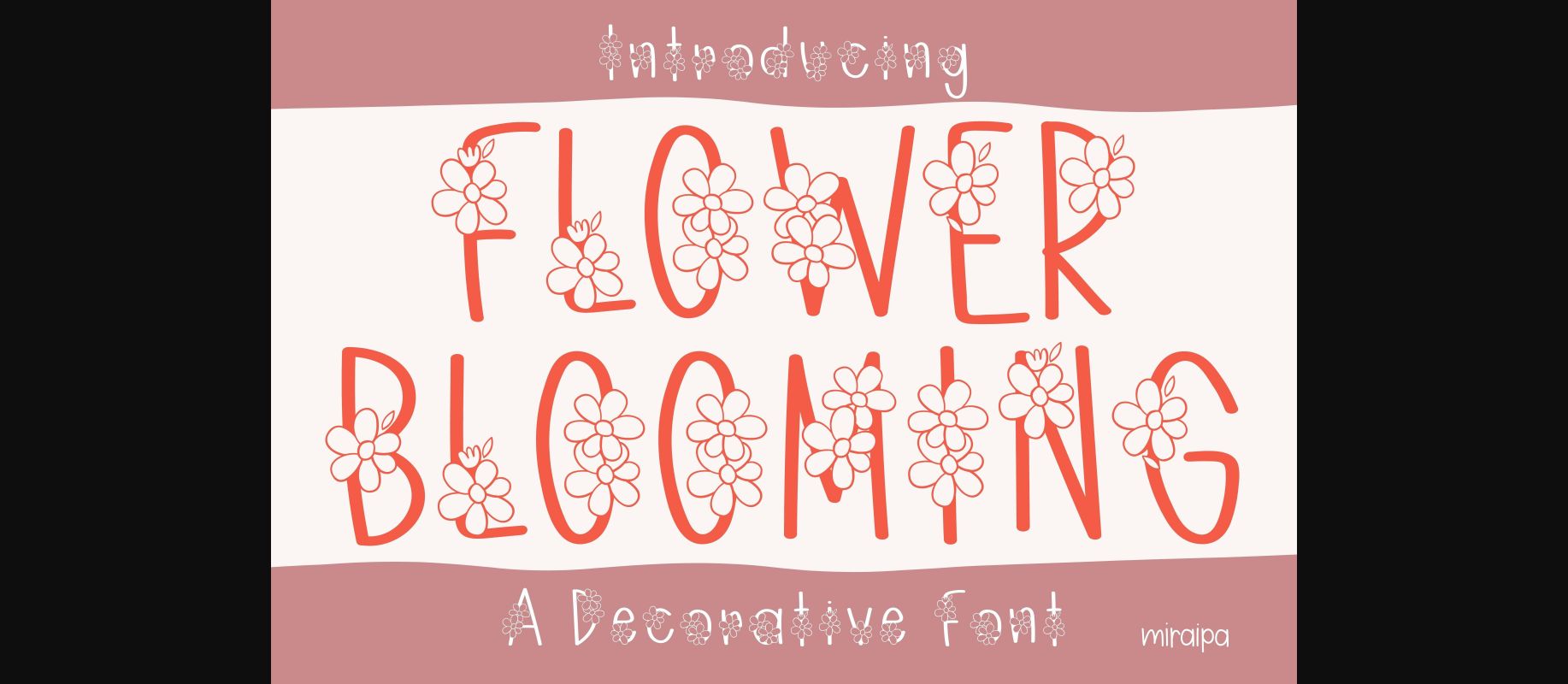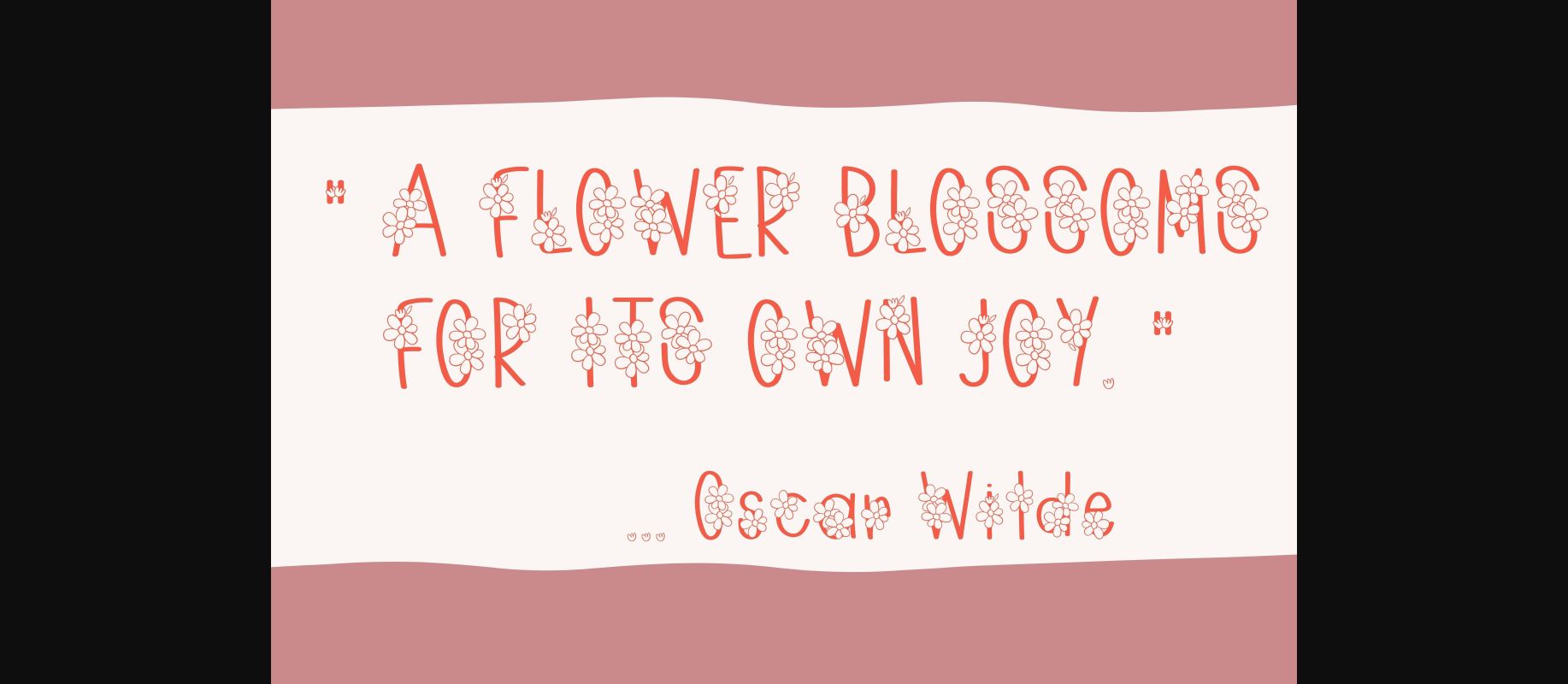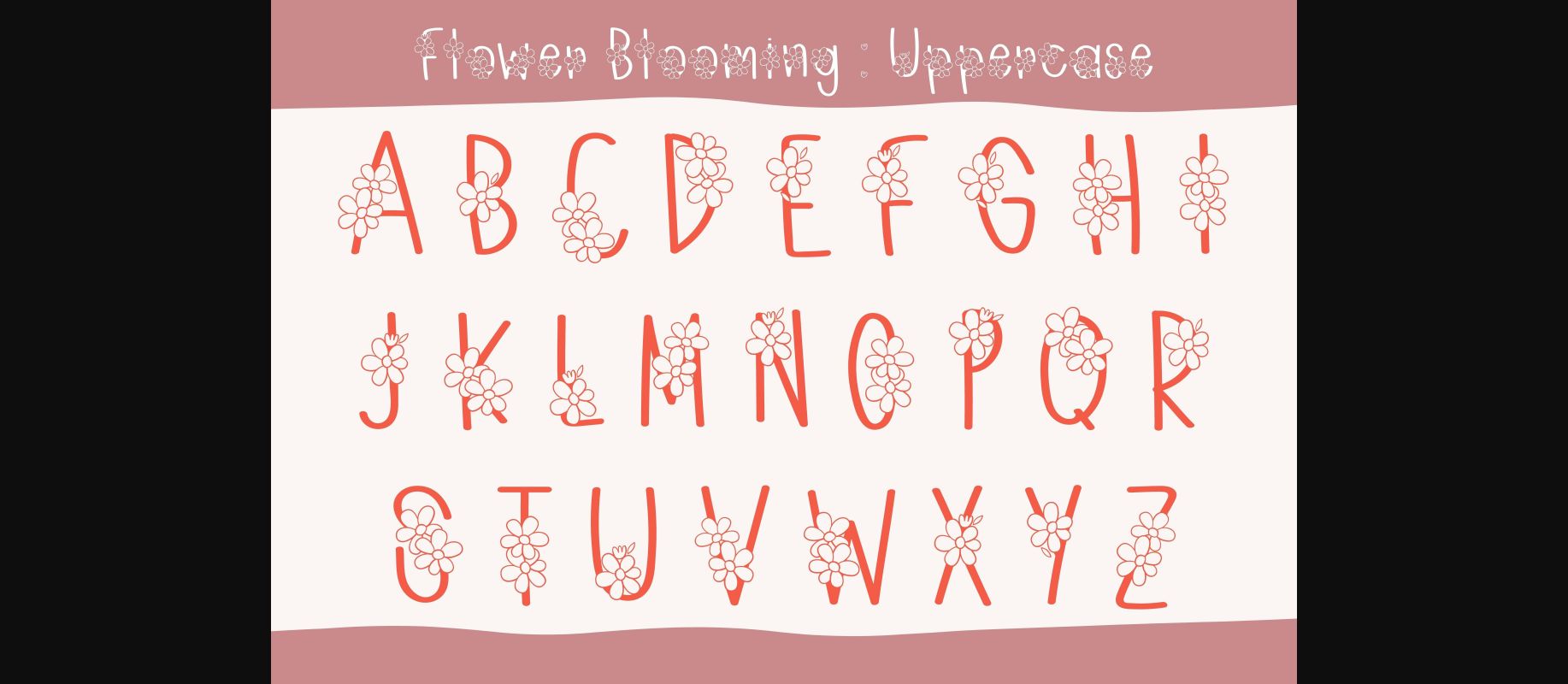
Flower Blooming Font
About Flower Blooming Font
Flower Blooming is a friendly and lovely decorative font. Cute and playful, this font would look great for a wide pool of design ideas that need a floral, joyful touch.